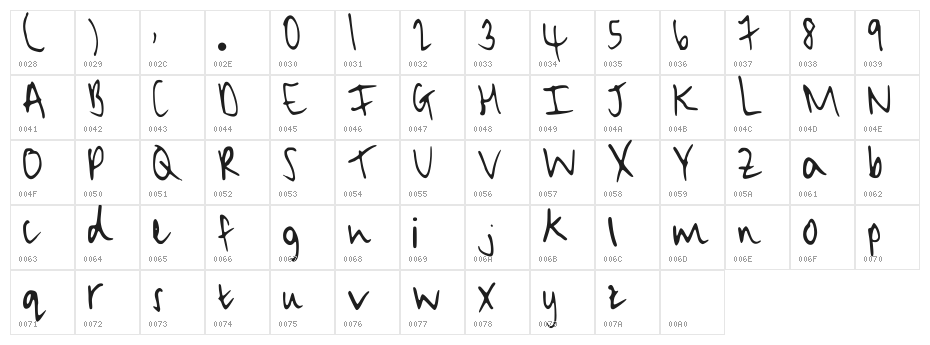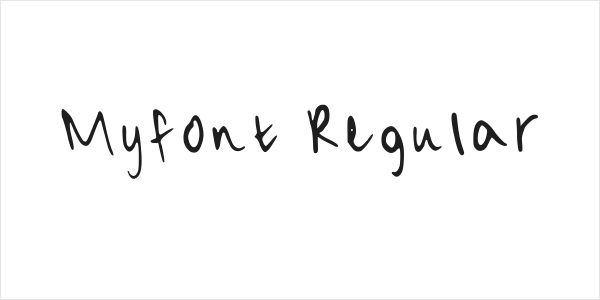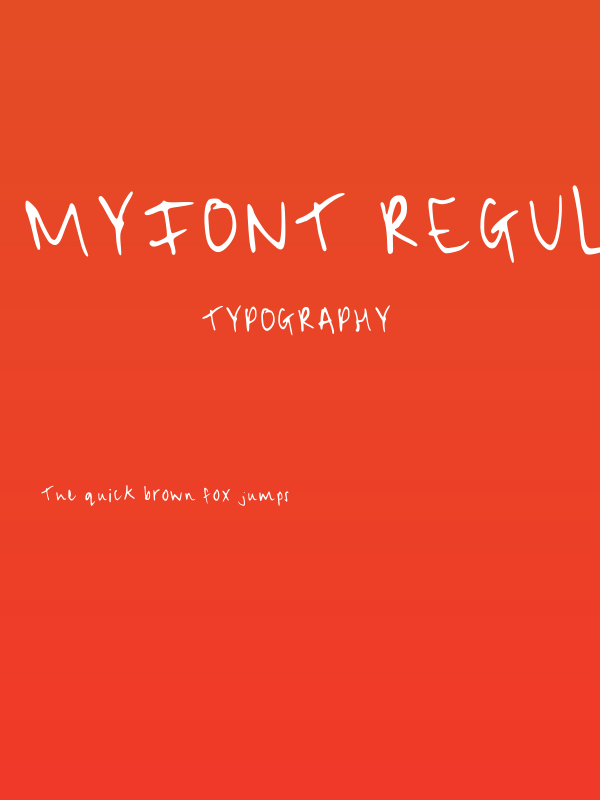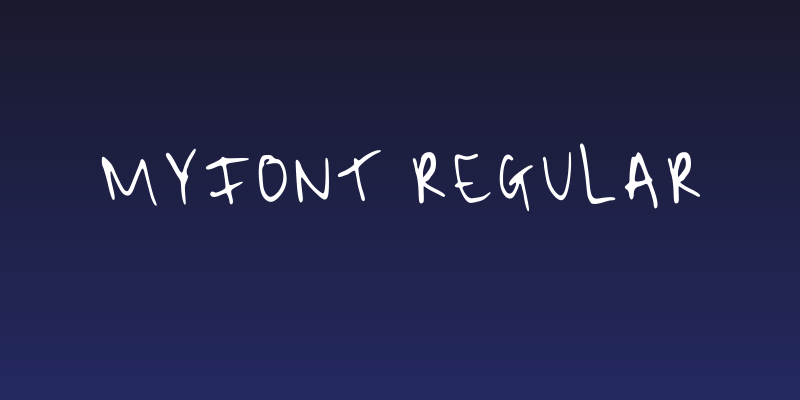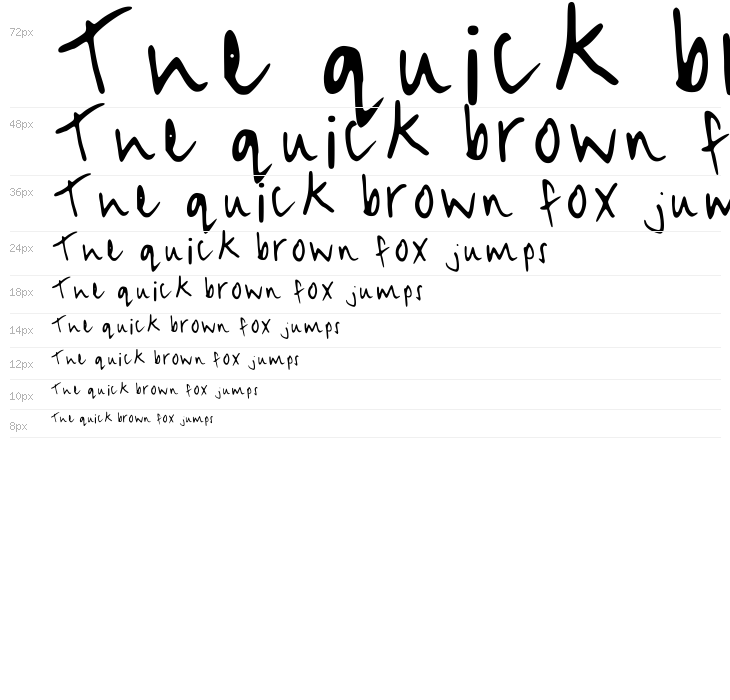
Myfont Regular Font
Myfont Regular Description
This font features a playful and casual handwritten style, characterized by its uneven strokes and organic flow. The letters have a natural, freeform appearance, with varying heights and widths that give it a lively and informal feel. The uppercase letters are bold and prominent, while the lowercase letters maintain a consistent style with slightly exaggerated curves and loops. The numbers and special characters follow the same whimsical design, making the font versatile for creative projects. Its overall look is approachable and friendly, suitable for conveying a personal touch.
| Use Case | Headlines, Logos, Informal text |
| Proposed Projects | Ideal for greeting cards, invitations, personal branding, and creative projects that require a friendly and informal touch. |